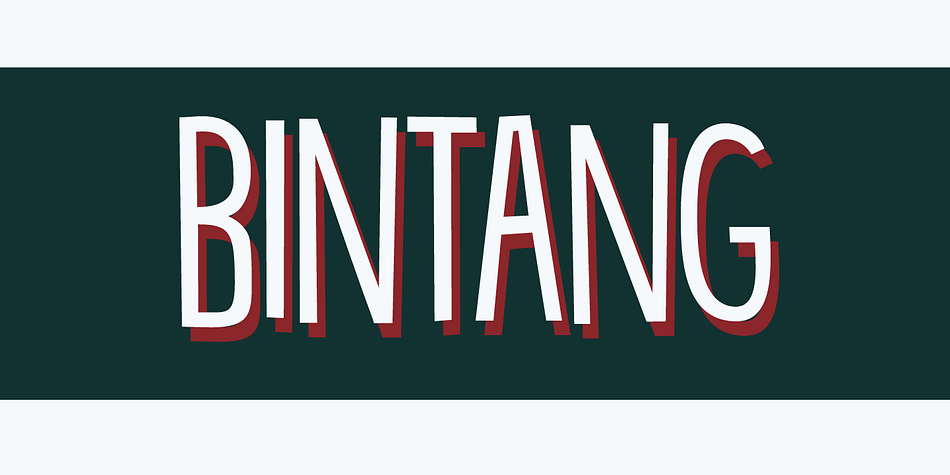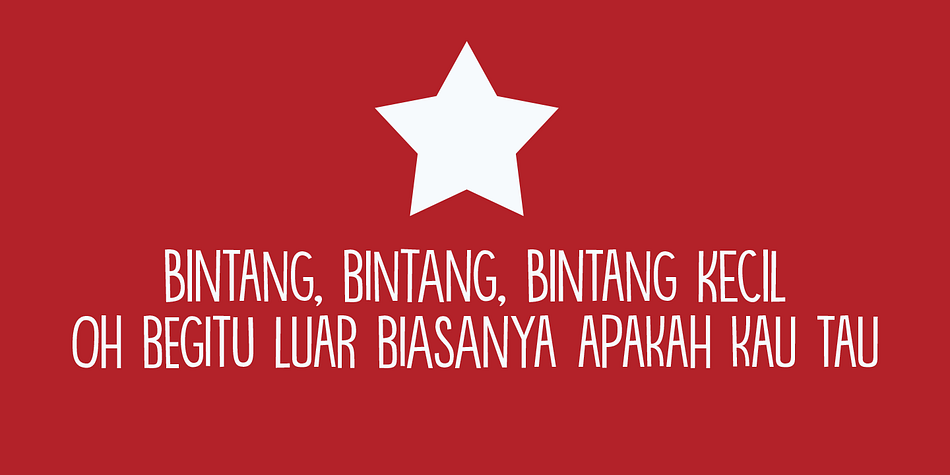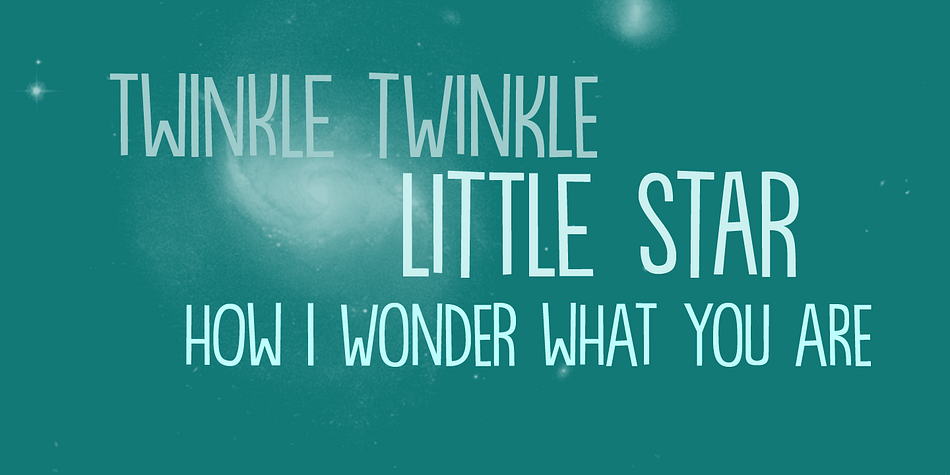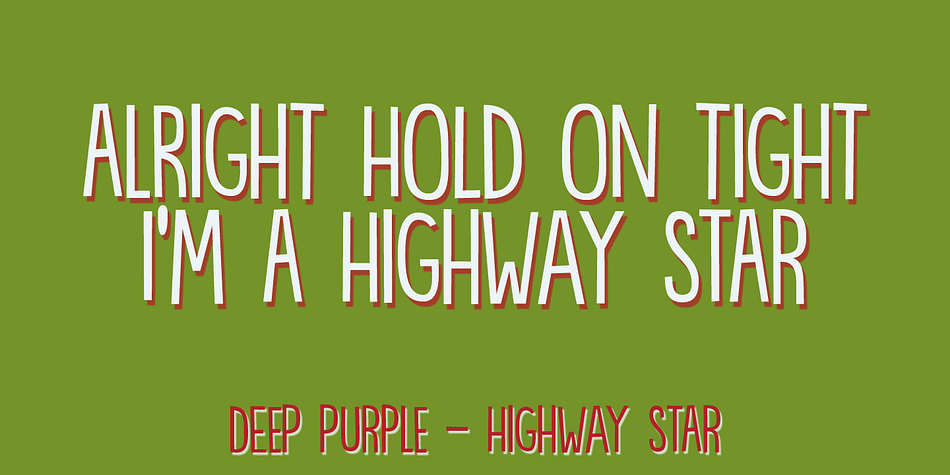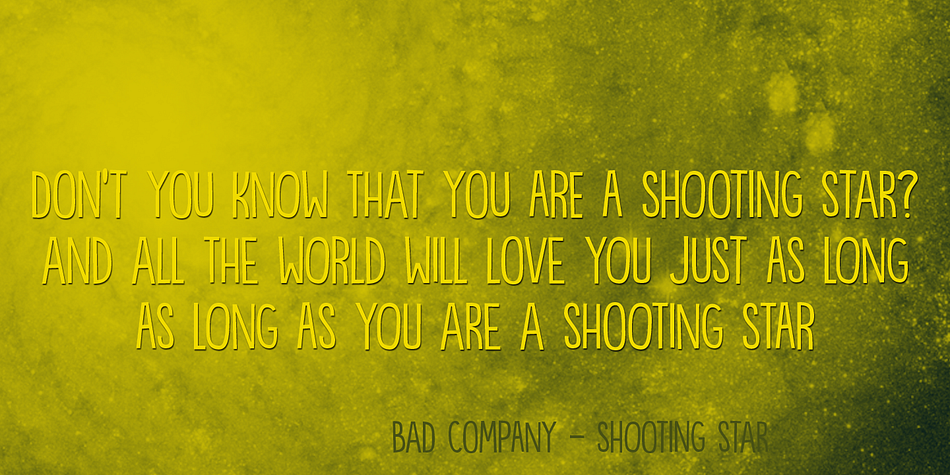
Designed by David Kerkhoff, Bintang is a hand display font family. This typeface has four styles and was published by Hanoded.
Bintang means Star in Bahasa Indonesia. Bintang font is a hand drawn, computer enhanced font. It is all caps, but upper and lower case differ and can be freely interchanged. Use Bintang for your product packaging, book covers, posters and magazines. Befitting a star, Bintang comes with a galaxy of diacritics.